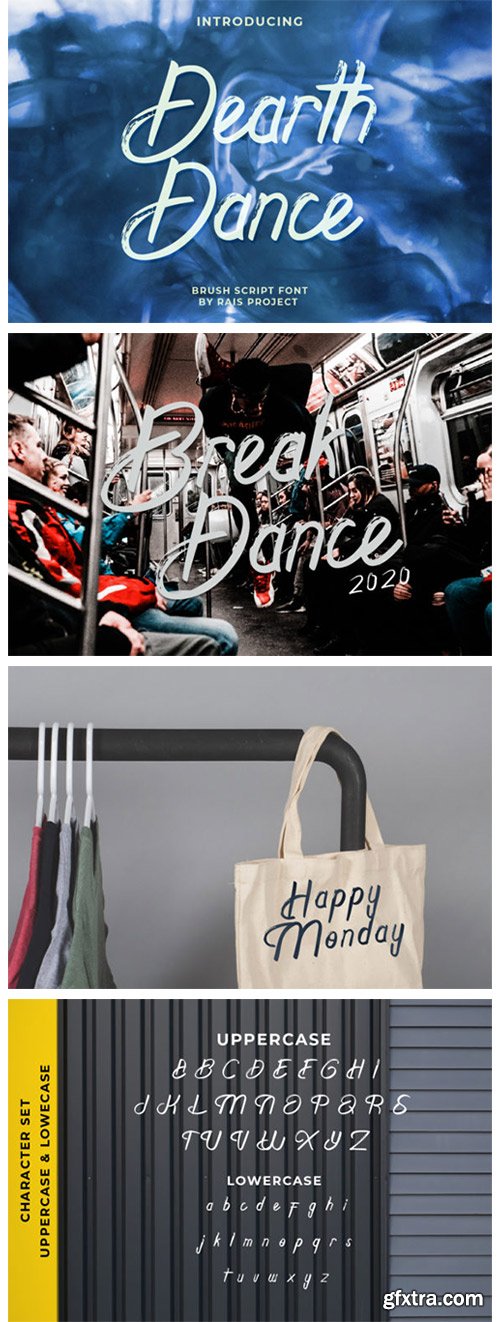
Dearth Dance Font
Dearth Dance is a modern brush style handwritten font. Use it to make your ideas even more realistic and create spectacular designs!